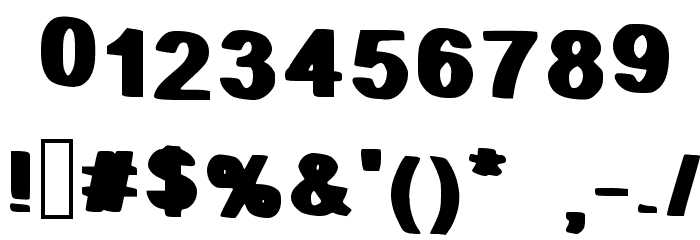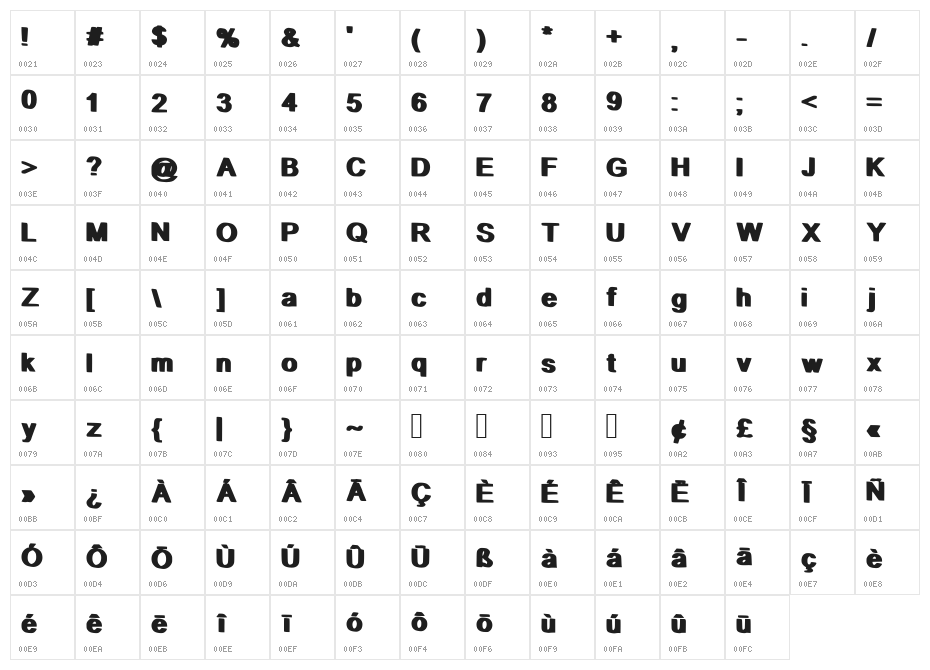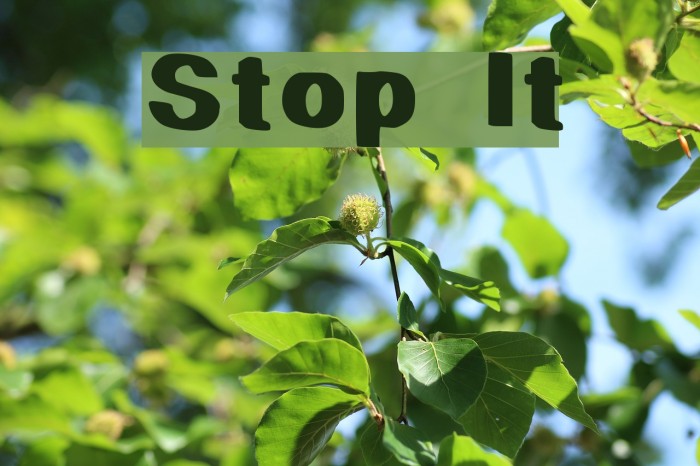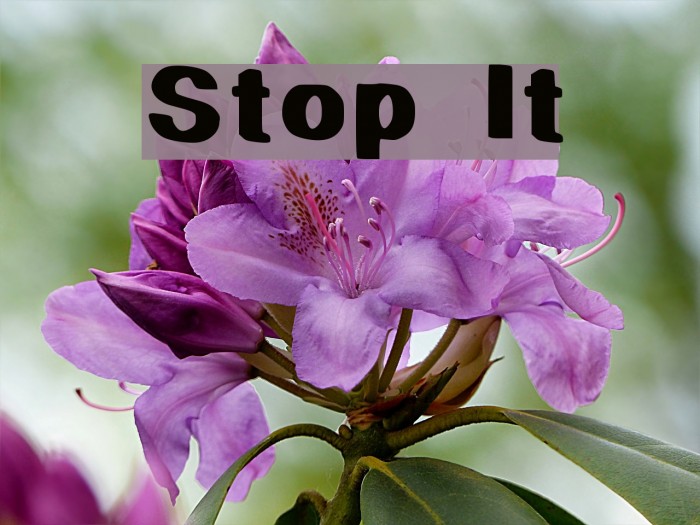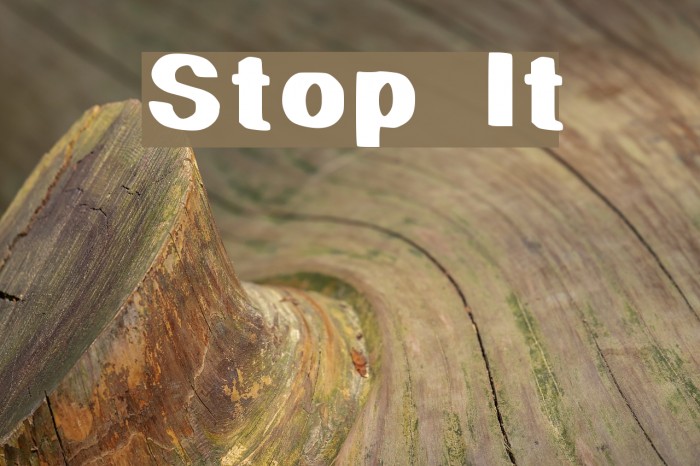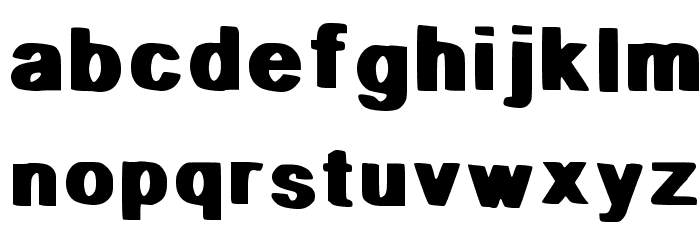
Stop It Font
Stop It Description
This font features bold, thick strokes with a strong presence, making it highly suitable for attention-grabbing headlines and impactful designs. The characters are uniformly wide, with a slightly rounded appearance that adds a touch of friendliness to its otherwise robust and assertive style. The uppercase and lowercase letters maintain consistent weight, ensuring a cohesive look across different text sizes. The numerals are equally bold, providing excellent readability. Special characters are well-integrated, maintaining the font's overall bold aesthetic. This font is ideal for projects that require a strong visual impact.
| Proposed Projects | Ideal for posters, advertising, branding, and any design requiring a strong visual impact. |